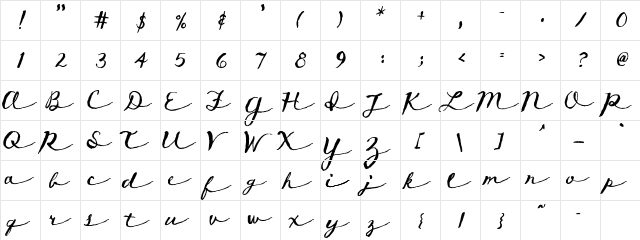
TXT LongHand Regular
Design Context for TXT LongHand Typeface
TXT LongHand brings a calligraphic fluidity to the page — its connecting strokes and expressive curves give it an unmistakably human quality.
Font Pairing: Combine TXT LongHand with a simple geometric sans for maximum contrast — the tension between flowing curves and clean structure is a classic typographic pairing.
Pro Tip: Use TXT LongHand for short runs of text — names, titles, or taglines. Extended body copy in script faces tires the eye quickly.